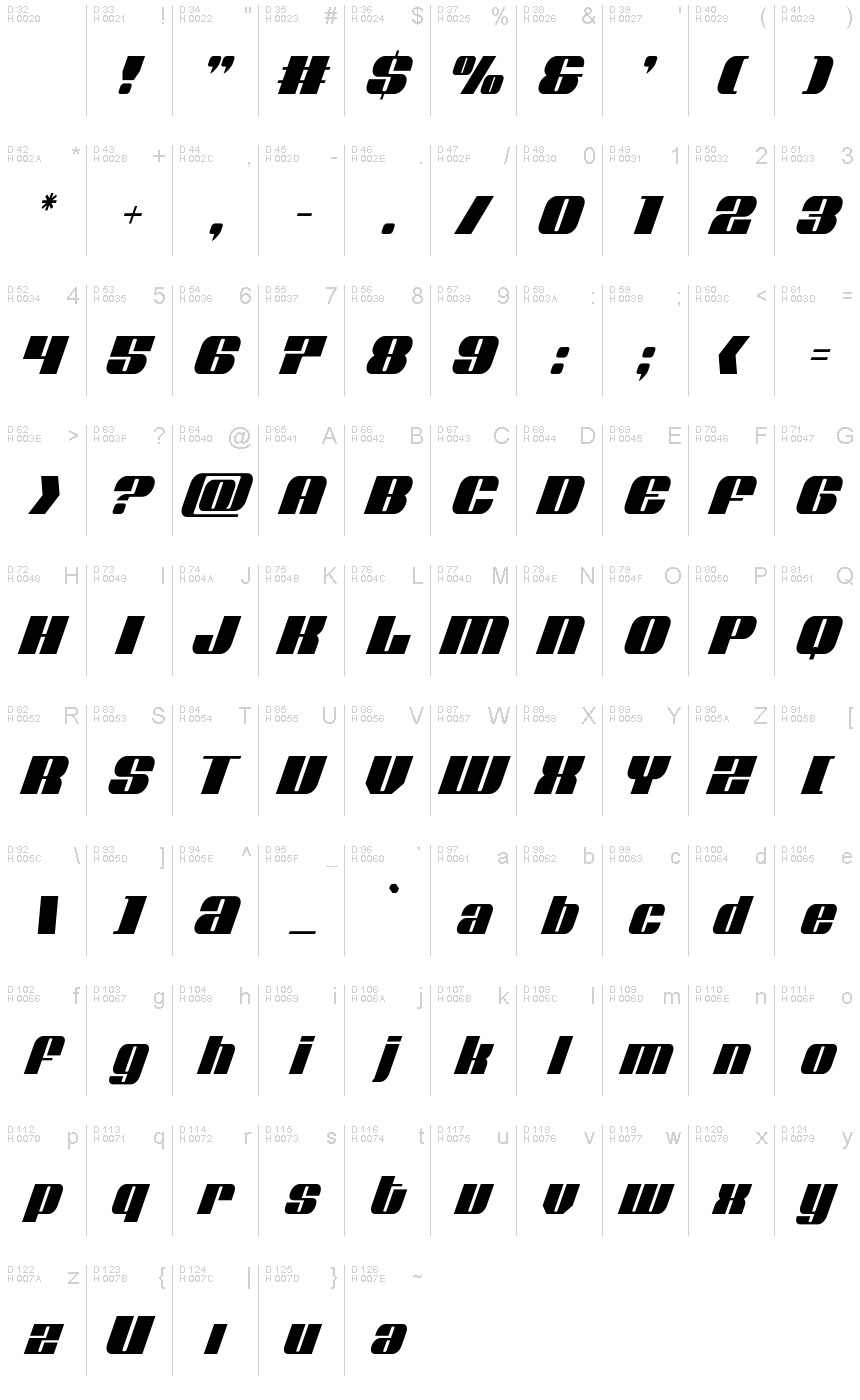
Nolo Contendre Condensed Italic, a bold and futuristic display font from Iconian Fonts, commands attention with its sharp, angular lines and sleek, condensed silhouette. This eye-catching typeface exudes a distinctly technological aesthetic, evoking a sense of modern sophistication and cutting-edge design. Its bold, distinctive letterforms possess a striking visual presence, making it an impactful choice for a variety of high-impact applications.
Nolo Contendre Condensed Italic's versatility shines through its ability to seamlessly integrate into diverse design contexts. From eye-catching headlines and logos to dynamic user interfaces and immersive digital experiences, this font's bold and condensed form lends itself well to projects that demand a strong, commanding presence. Its technical, futuristic style makes it an ideal choice for branding, advertising, and other design initiatives aimed at capturing the attention of a modern, tech-savvy audience.